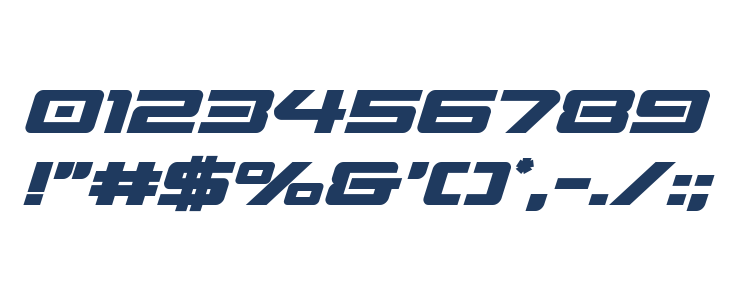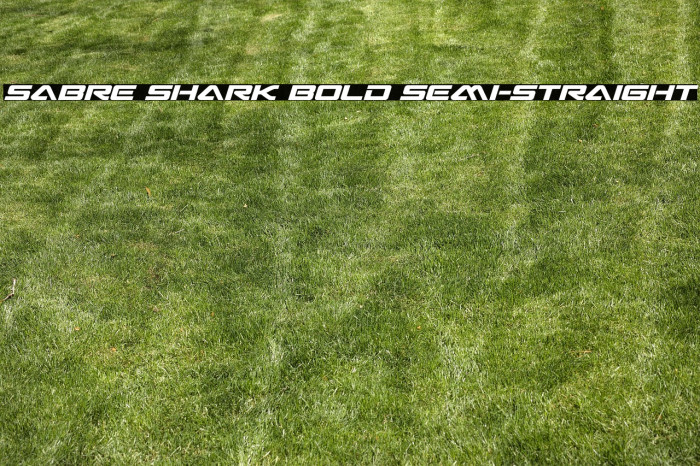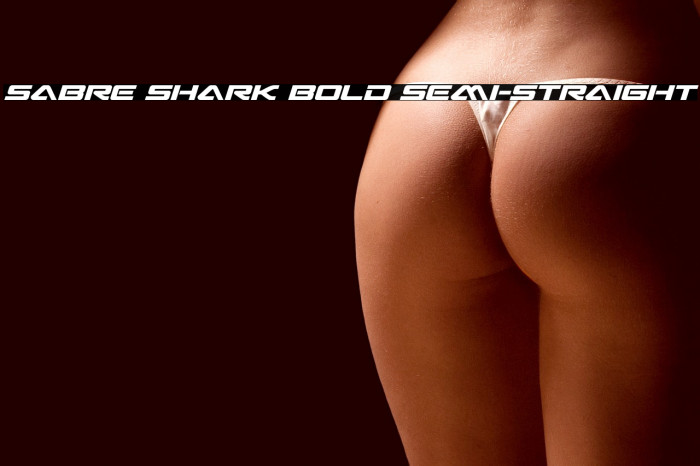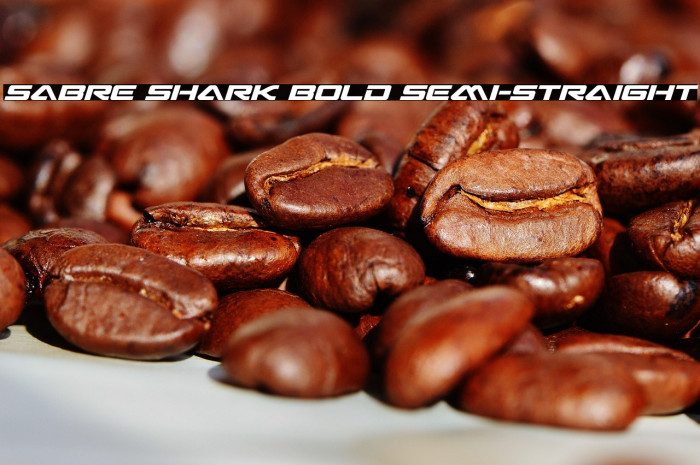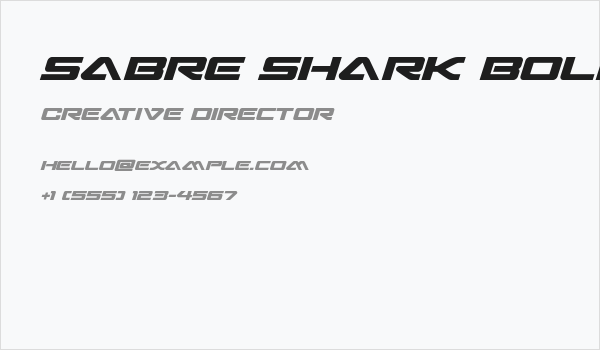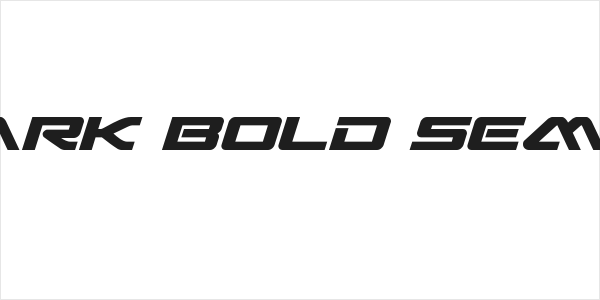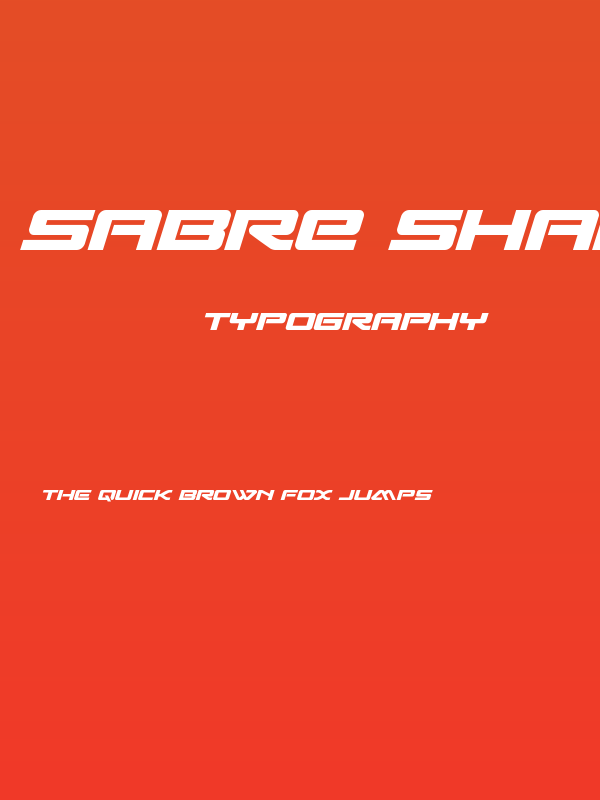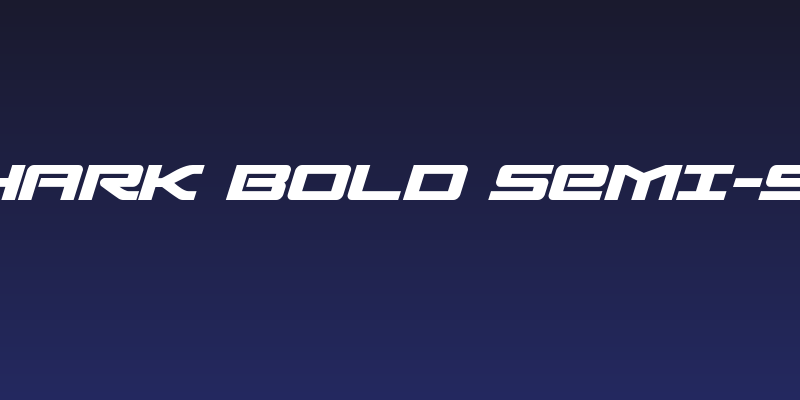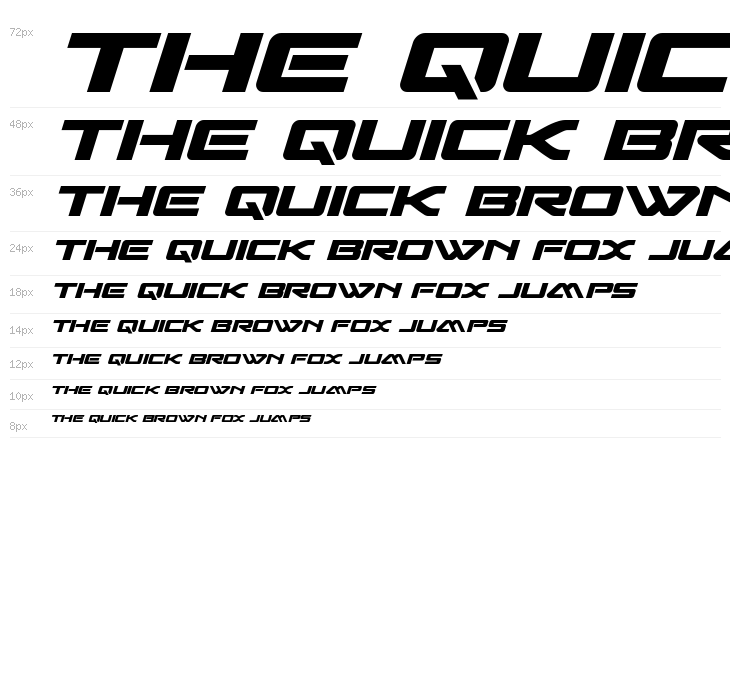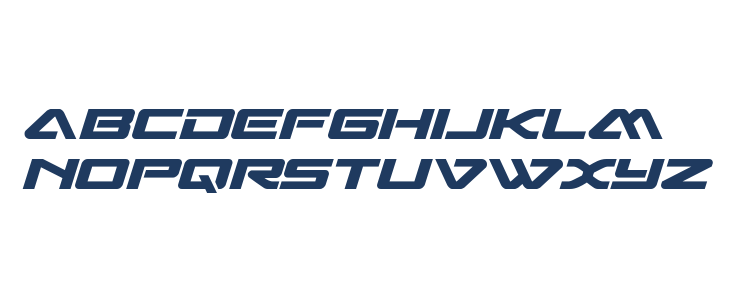
Sabre Shark Bold Semi-Straight Font
Sabre Shark Bold Semi-Straight Description
This font features a bold and dynamic design with a futuristic and angular aesthetic. The characters are sharply defined with a semi-straight alignment, giving them a sleek and modern appearance. The uppercase letters are particularly striking, with a consistent geometric style that suggests speed and precision. The numbers and special characters maintain this cohesive look, making the font suitable for projects that require a strong visual impact. The overall design is both eye-catching and versatile, ideal for creating a bold statement.
| Proposed Projects | Ideal for branding, sports team logos, automotive designs, and tech-related projects. |